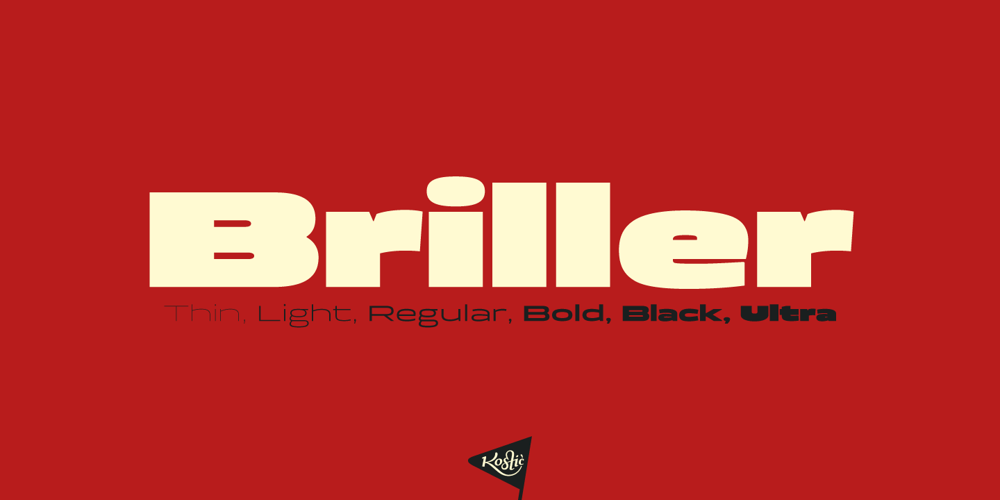
Briller
Briller font
Briller Font Family was designed by Nikola Kostić and published by Kostic. Briller contains 6 styles and family package options. Briller is a super-wide display sans that covers 6 weights, from delicate Thin on one side to chunky Ultra on the other end. Briller tabular figures (via the OT feature) and most of figure related glyphs (such as monetary symbols) are the same width throughout the weights, leaving fun possibilities in pairing them up in contrast while retaining that sense of tabular order. Briller has a character set to support Western and Central European languages. Each weight includes ligatures, proportional lining and tabular figures, fractions and scientific superior/inferior figures.